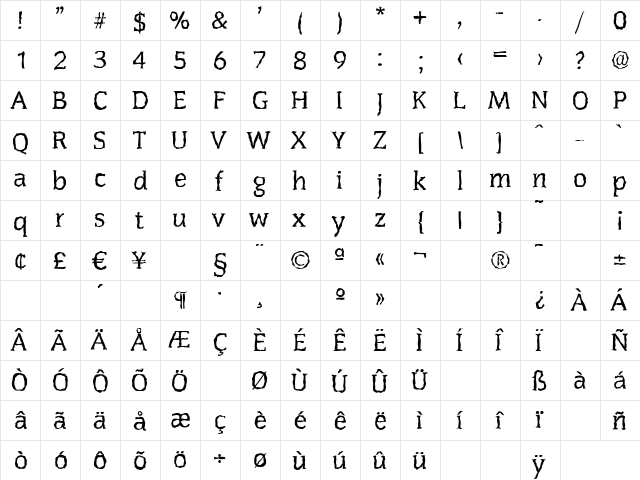
CongressRandom Regular
Design Context for CongressRandom Typeface
CongressRandom takes a measured approach to typography — its balanced proportions and neutral character make it a reliable workhorse for both digital and print work.
Pro Tip: Use CongressRandom in both headline and body roles to test its range before committing to a single application.